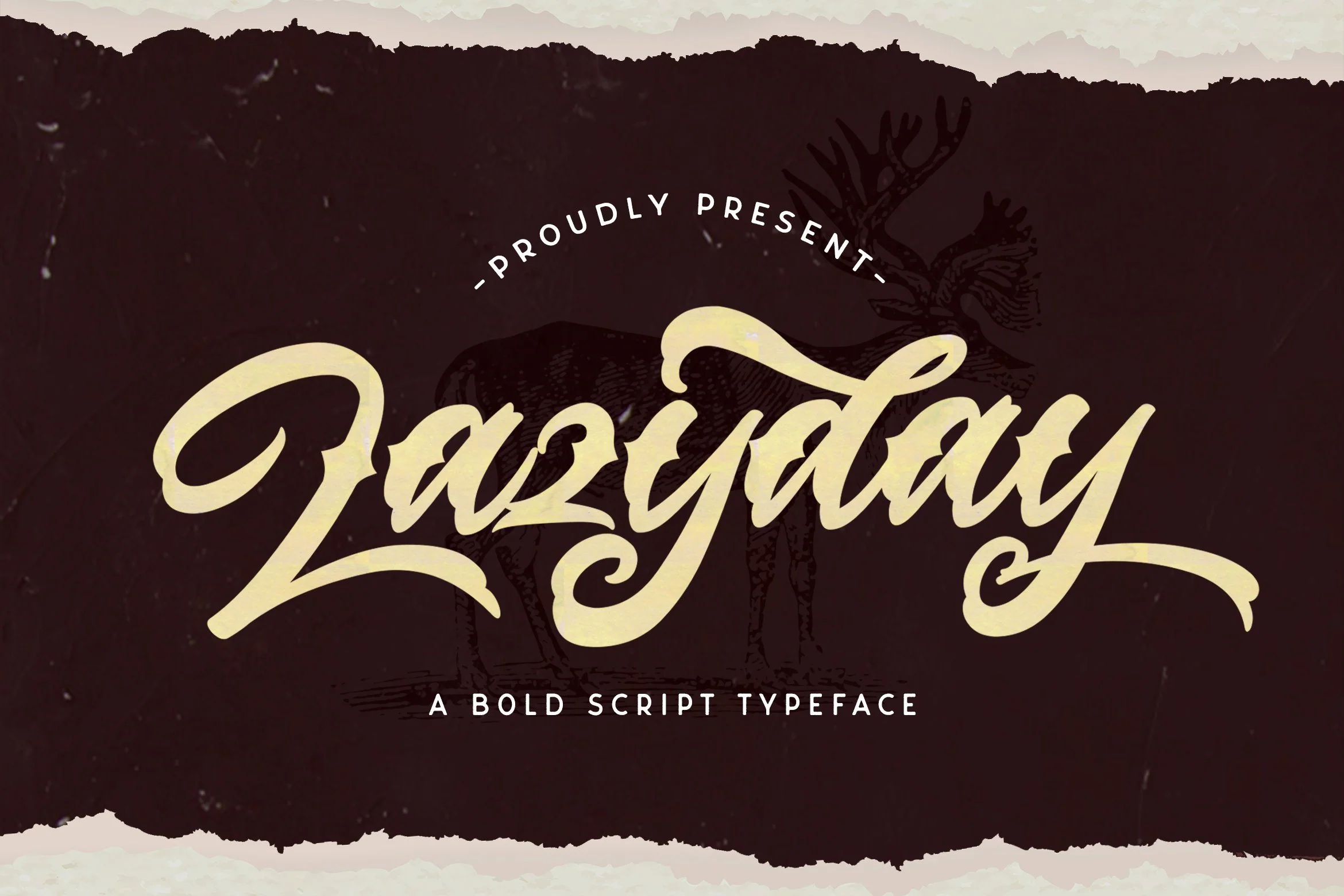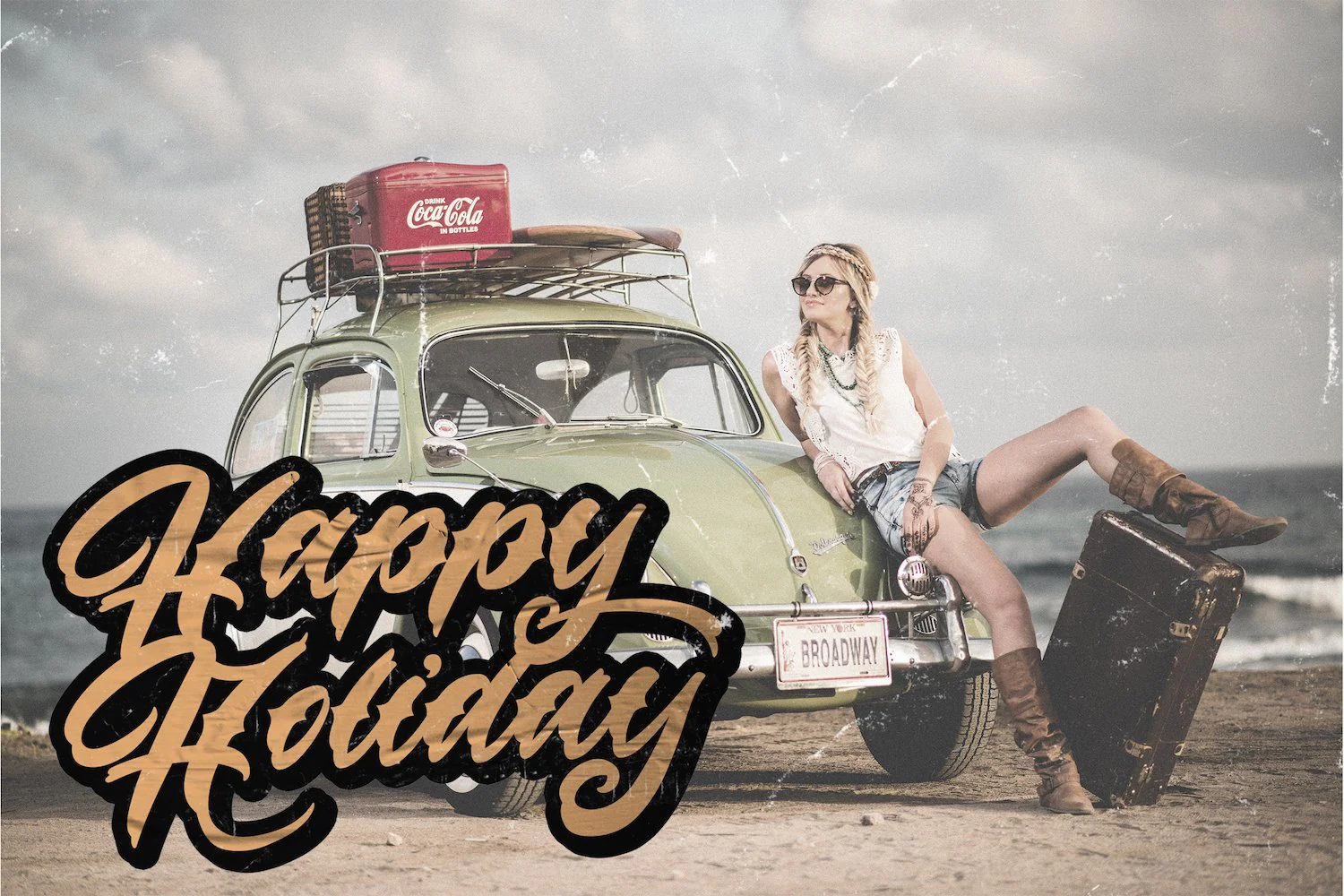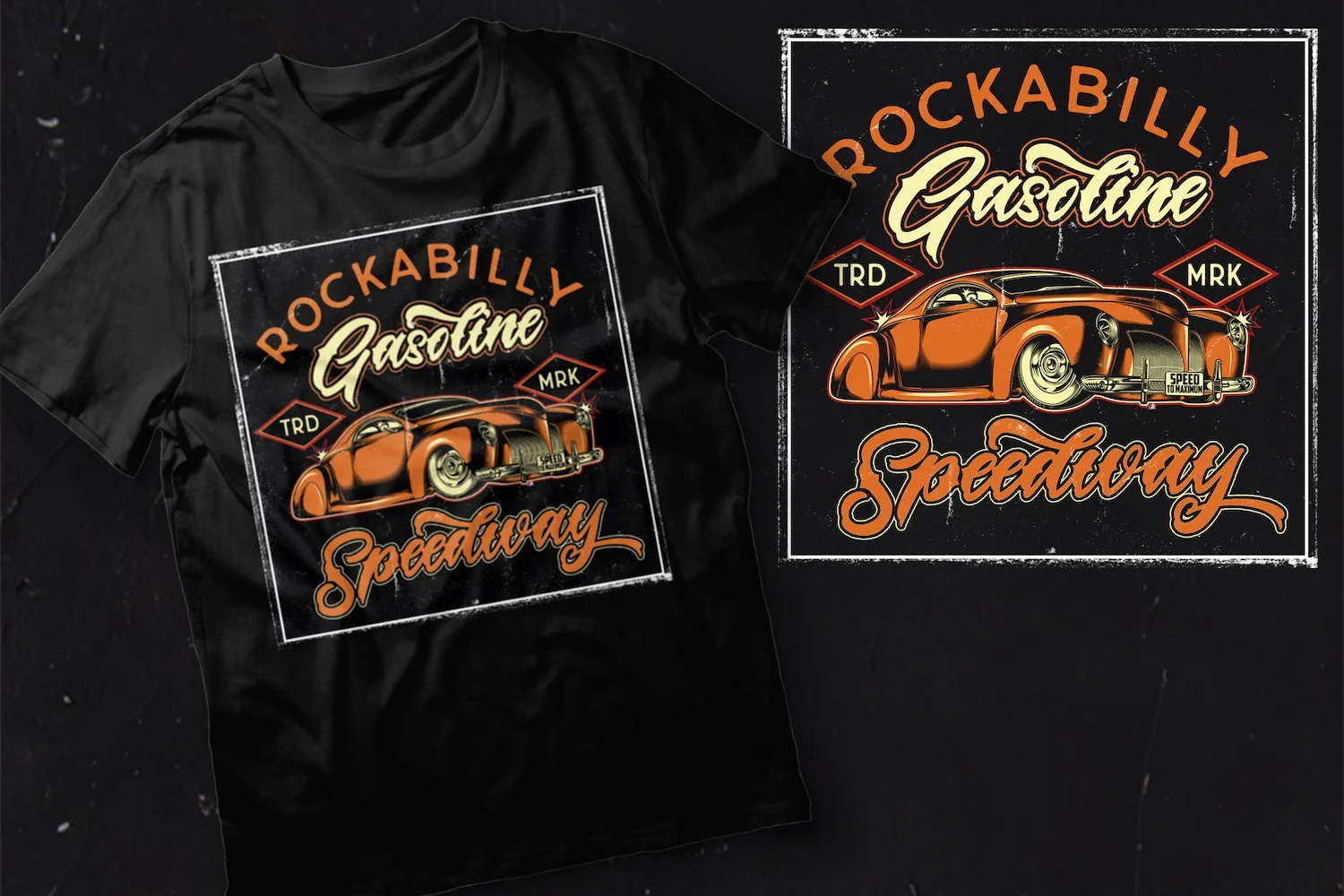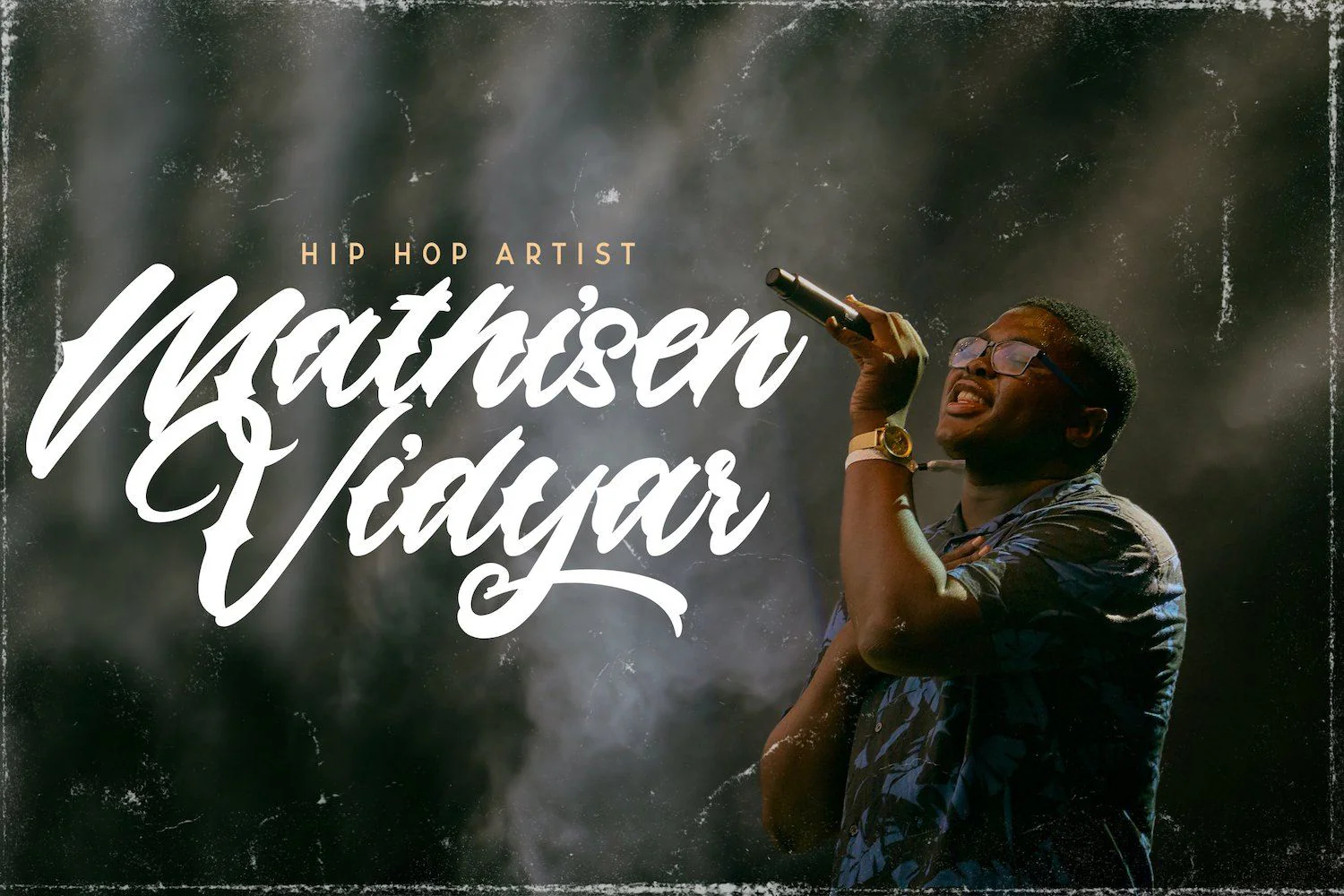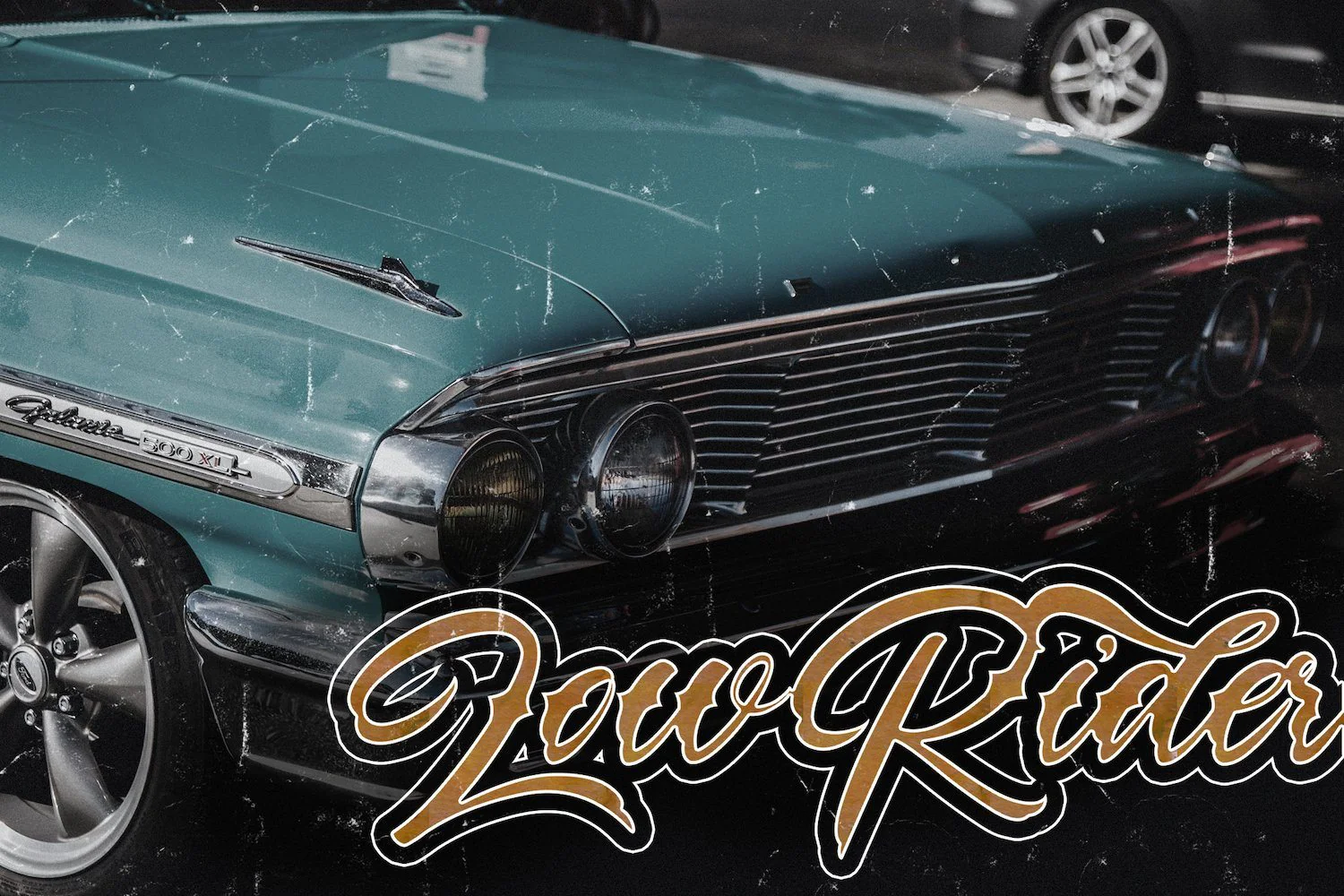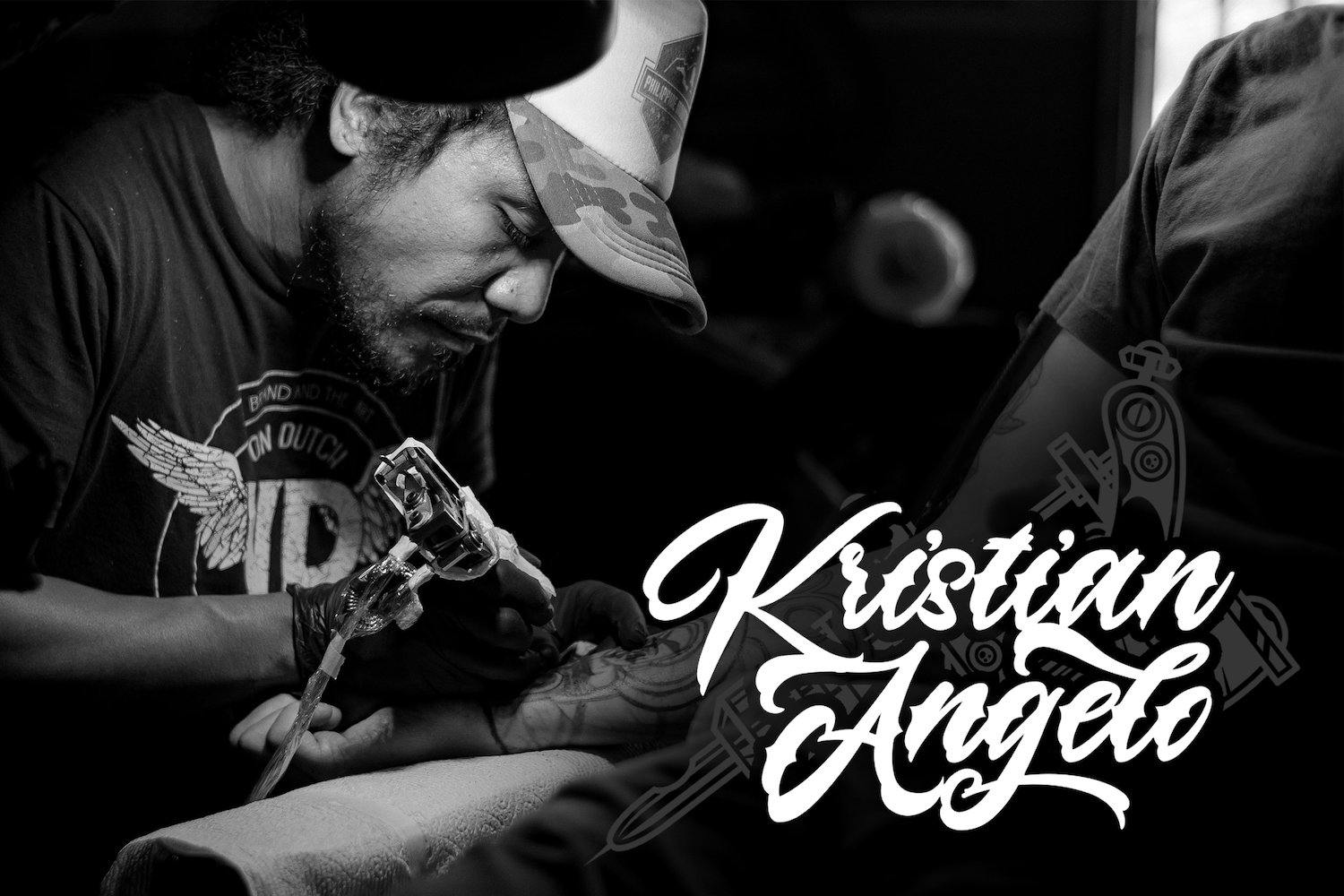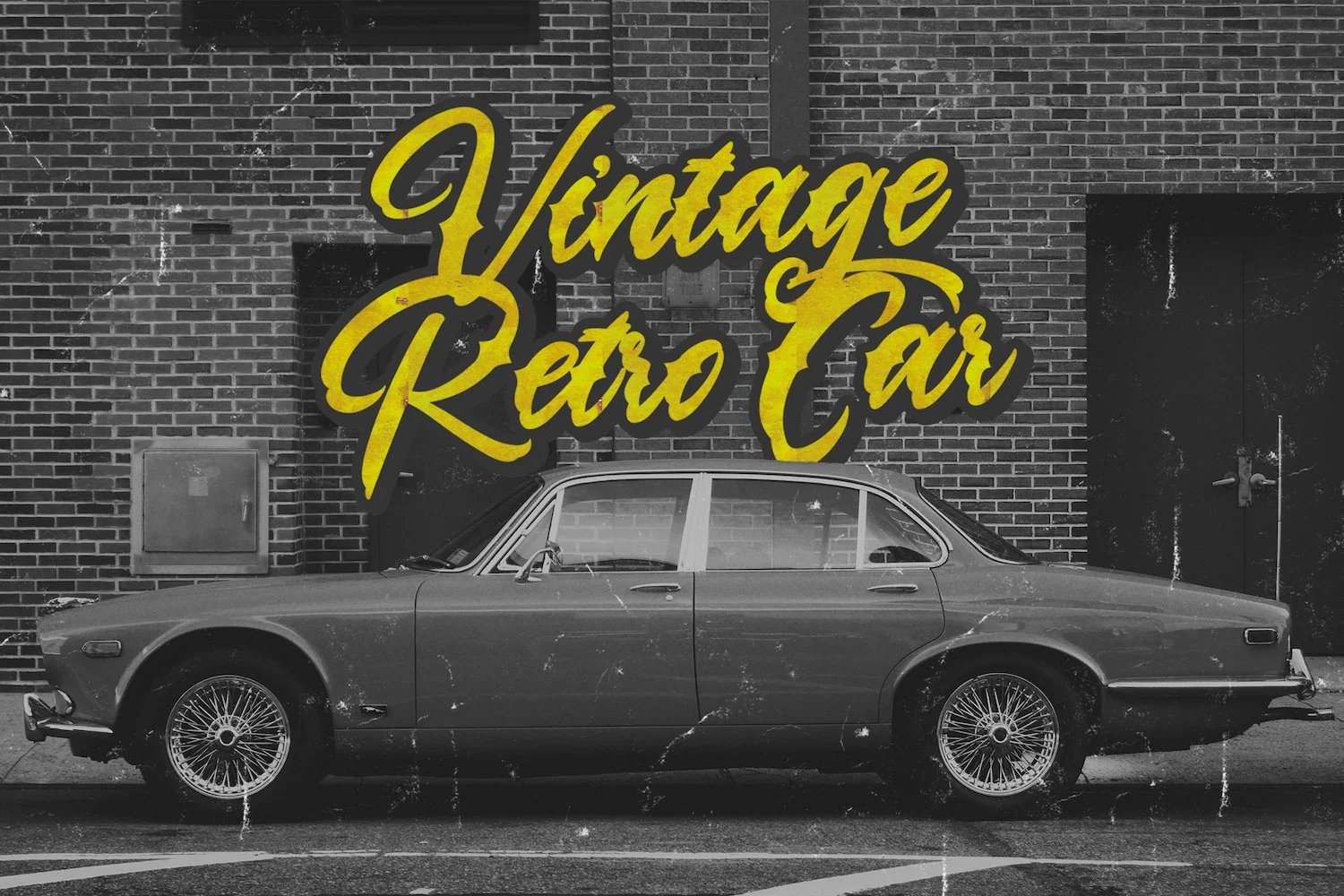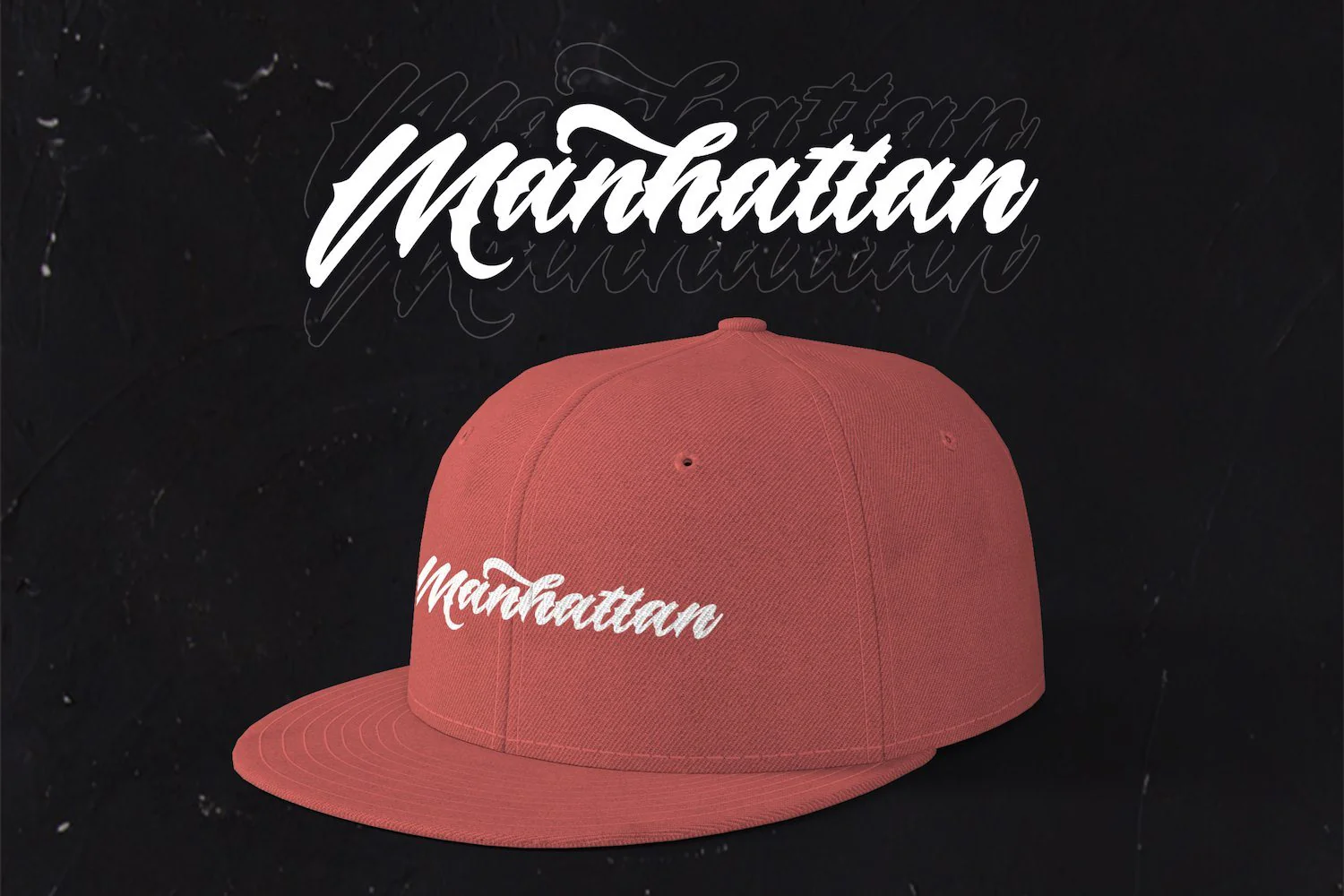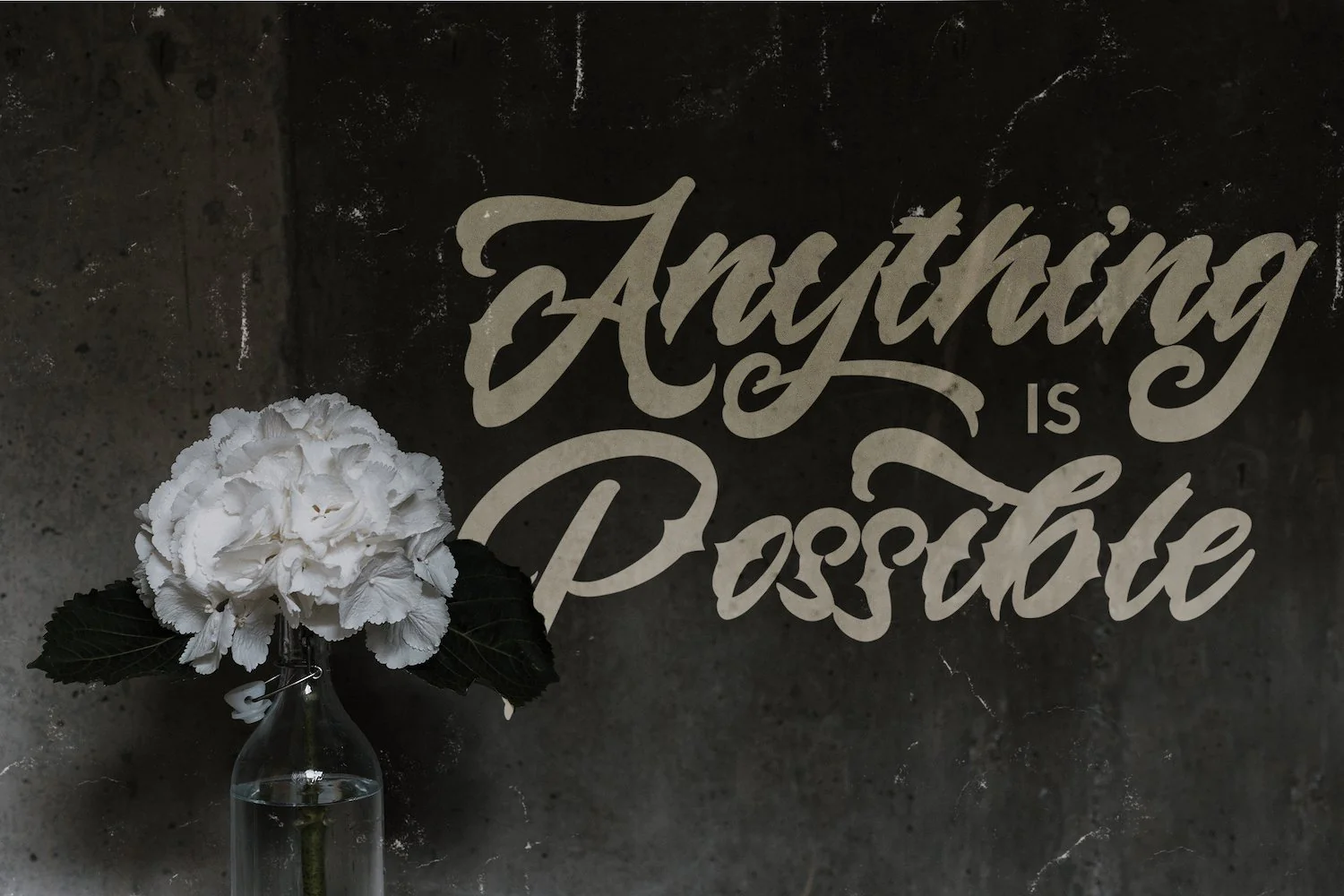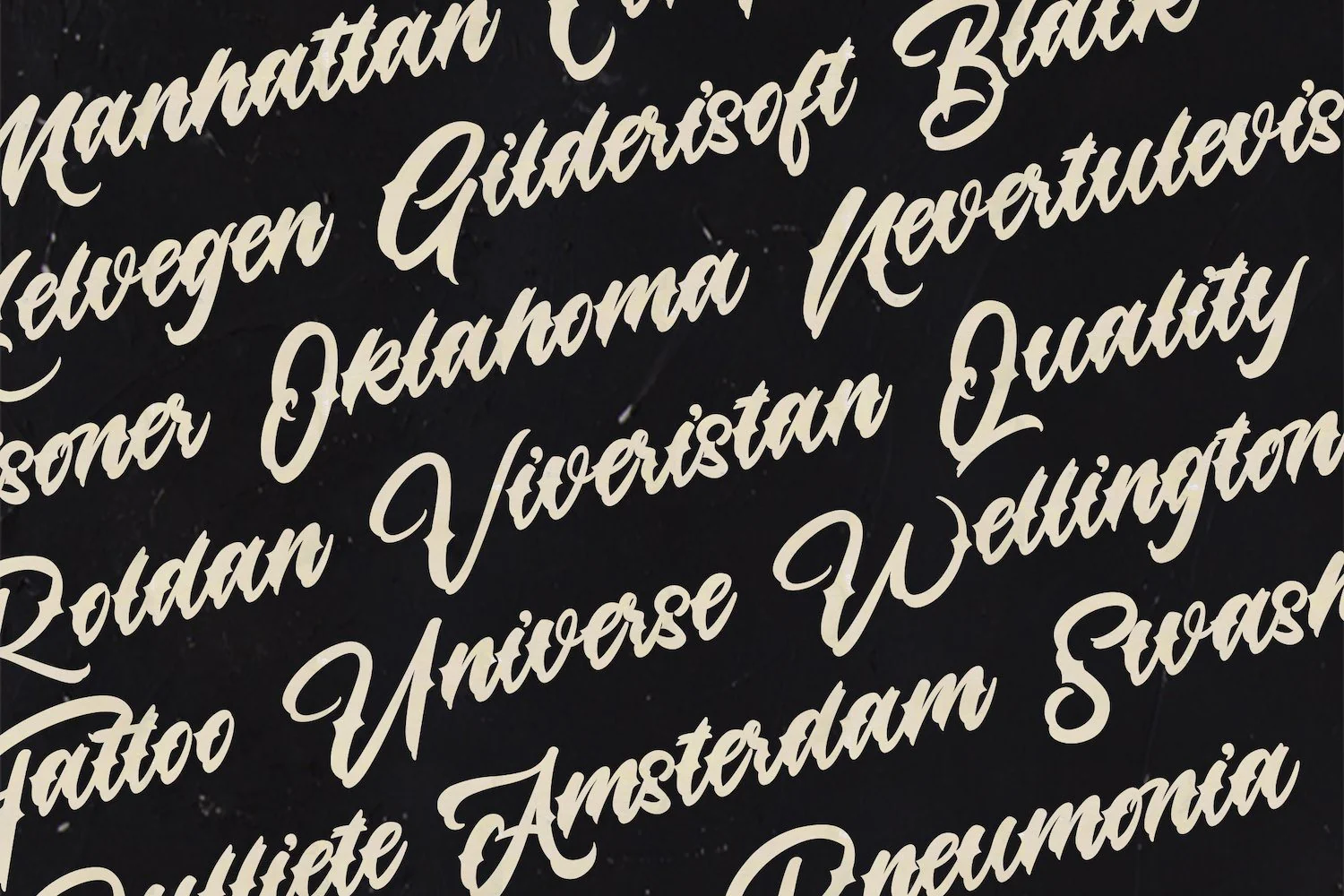
Lazyday - Bold Script Font
Introducing Lazyday - Bold Script Font
The Lazyday is a strong and bold script font. Itās curved and rounded in every single touch, and has an unique vintage and retro styles thatās perfect for branding.
Introducing Lazyday - Bold Script Font
The Lazyday is a strong and bold script font. Itās curved and rounded in every single touch, and has an unique vintage and retro styles thatās perfect for branding.